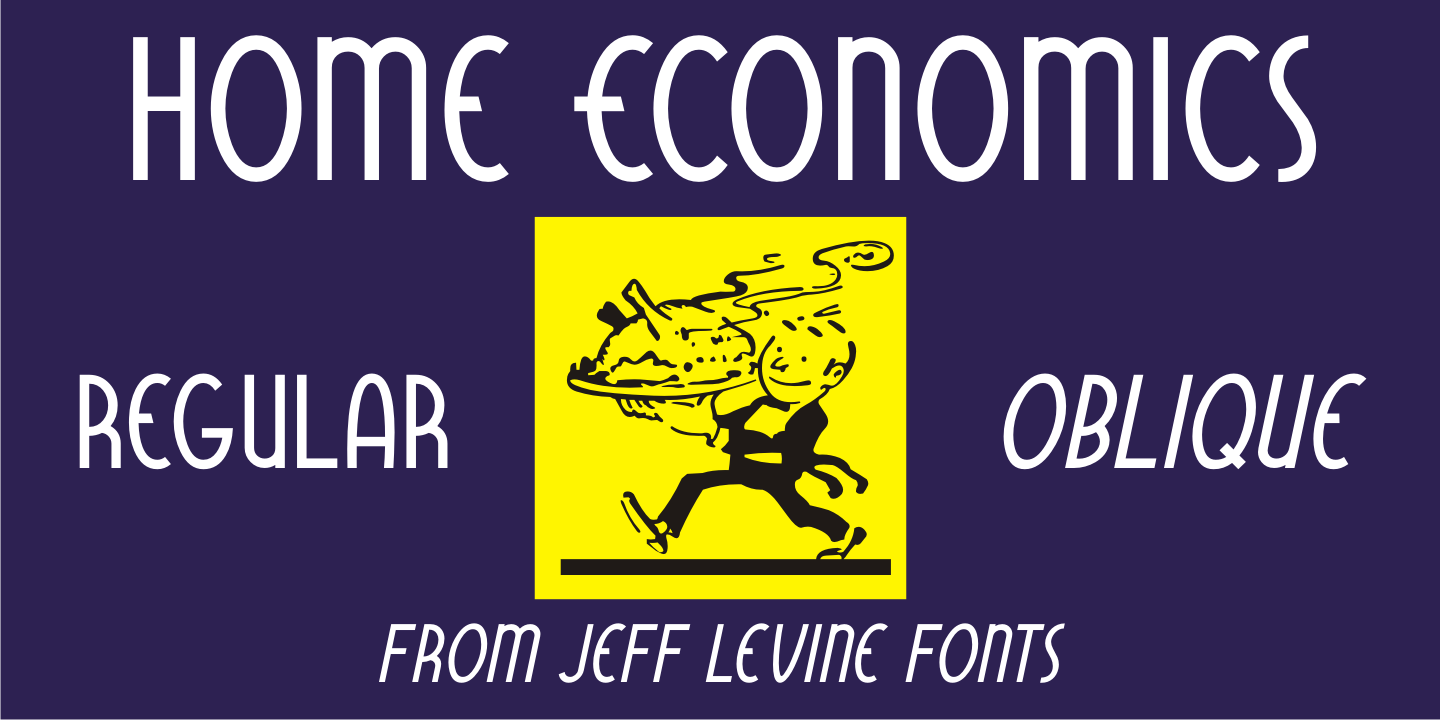
Home Economics
Vintage packaging [circa 1940s] for a sewing machine attachment used for making lattice-type stitching had its information hand lettered in a casual Art Deco sans serif design.
This became the basis of Home Economics JNL, which is available in both regular and oblique versions.
Home Economics JNL Regular by Jeff Levine Fonts